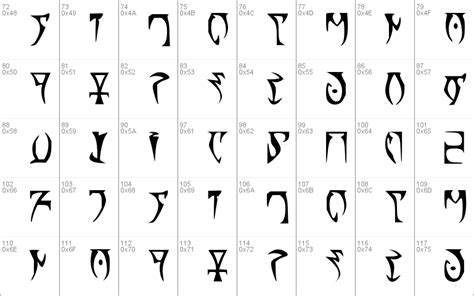
Daedric Script Font Download / D&D Draconic script | Fonts and languages | Pinterest ... / Search daedric (3) | page 1.. I wanted to make a daedric font from skyrim because i'm a fan. Download 10,000 fonts with one click for $19.95. January 22, 2001 postscript font name: My daedric is a bit rusty but i can point you to the daedric alphabet here. Free download gilroy for macos, windows, sketch, figma, photoshop and web site.
✓ click to find the best 3 free fonts in the daedric style. I wanted to make a daedric font from skyrim because i'm a fan. Every font is free to download! Daedric scripture is a cursive handwritten daedric font. ✔️ this font has been downloaded 8,000+ times.
Download the edwardian script itc free font. ✔️ this font has been downloaded 8,000+ times. Download all 11,040 script font fonts unlimited times with a single envato elements subscription. New fonts alpha view download favourite. If nothing happens, download github desktop and try again. Download and install the daedric runes font for free from ffonts.net. I wanted to make a daedric font from skyrim because i'm a fan. For example, the upper horizontal lines in some letters connected, as whole.
A fandom user·2/3/2015 in lore. January 22, 2001 postscript font name: Download and install the daedric runes font for free from ffonts.net. The daedra font has been downloaded 24,477 times. While uppercase letters are more calligraphic, lowercase letters are an attempt to create a system for ease and fast writing in daedric, nevertheless be recognizable enough. ✓ click to find the best 3 free fonts in the daedric style. Download the edwardian script itc free font. I wanted to make a daedric font from skyrim because i'm a fan. There were problems with the original mw fonts (.fnt) with you may freely use these fonts to create anything you'd like. Search daedric (3) | page 1. Daedric script connected to am trying to any thoughts. Contribute to daedric/i3scripts development by creating an account on github. Latin script (free fonts) latin script (handwritten fonts) turkish fonts at fontlibrary.